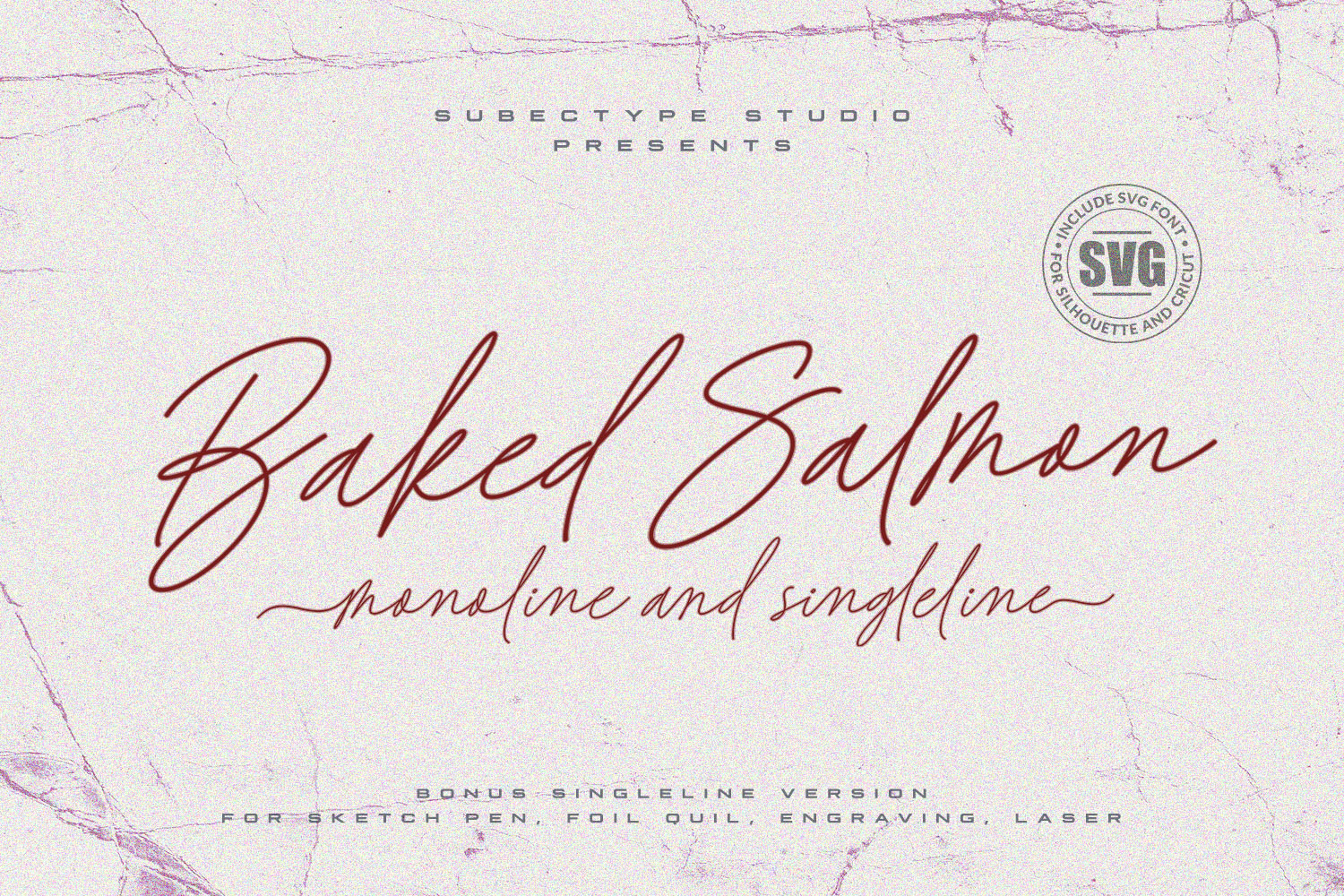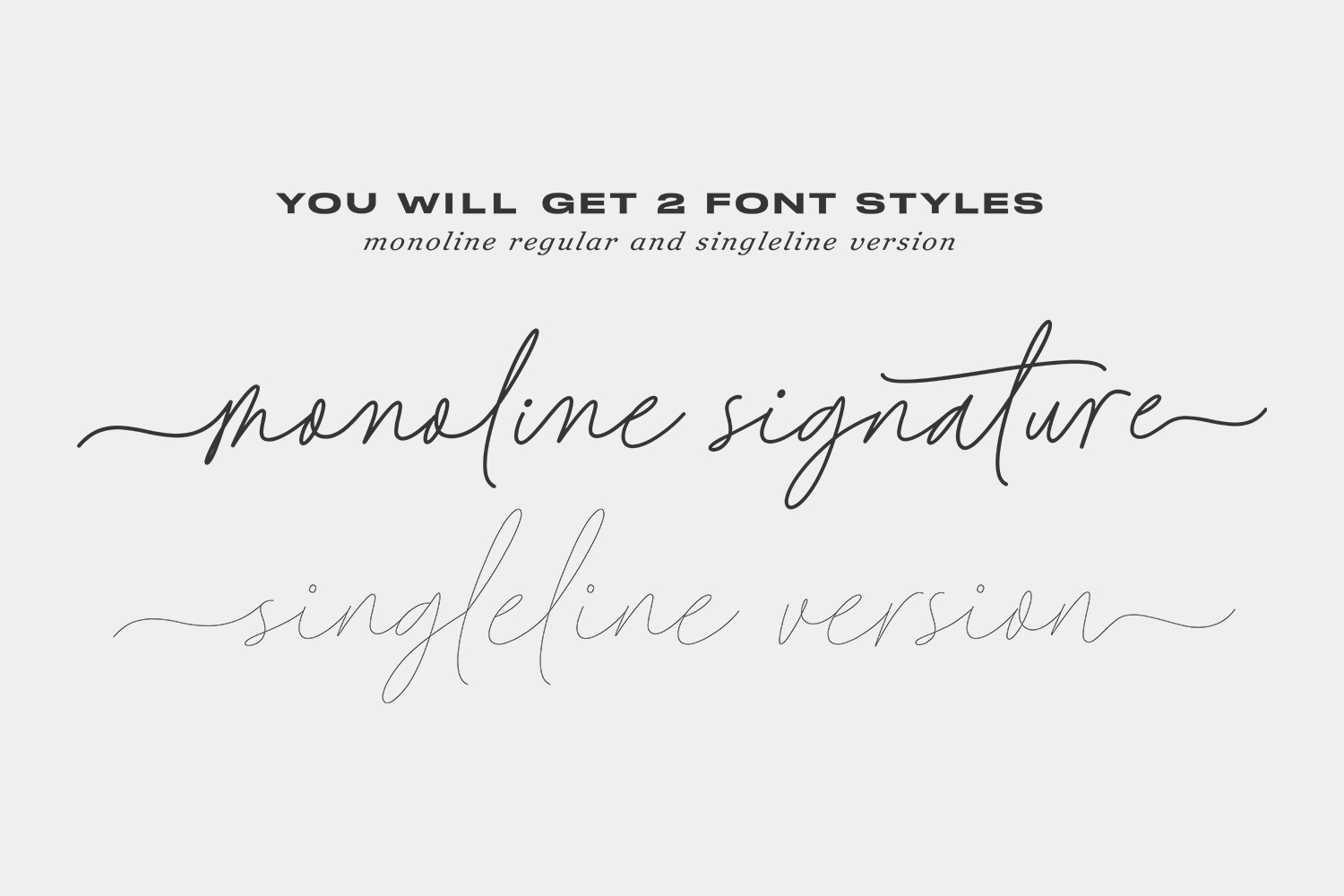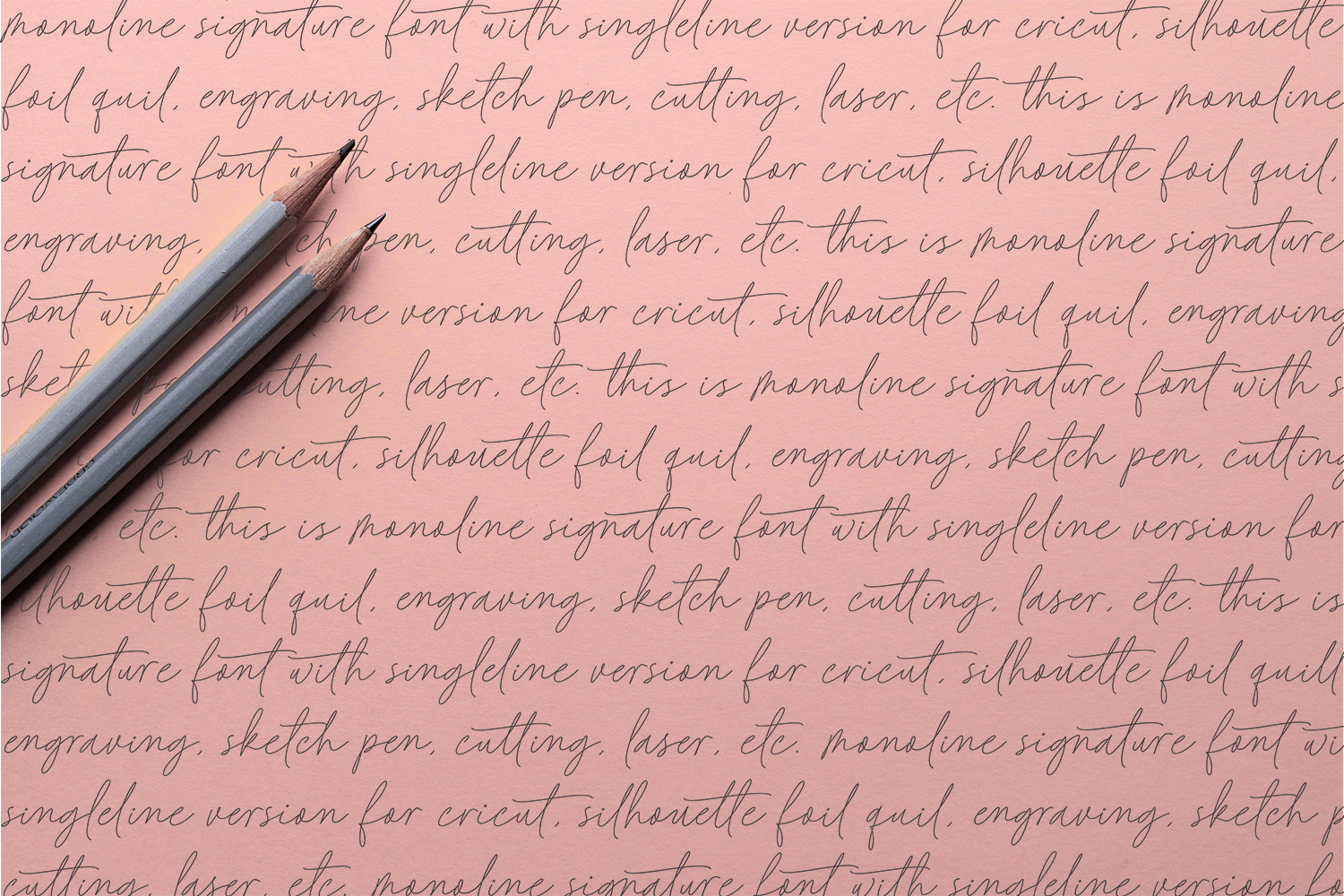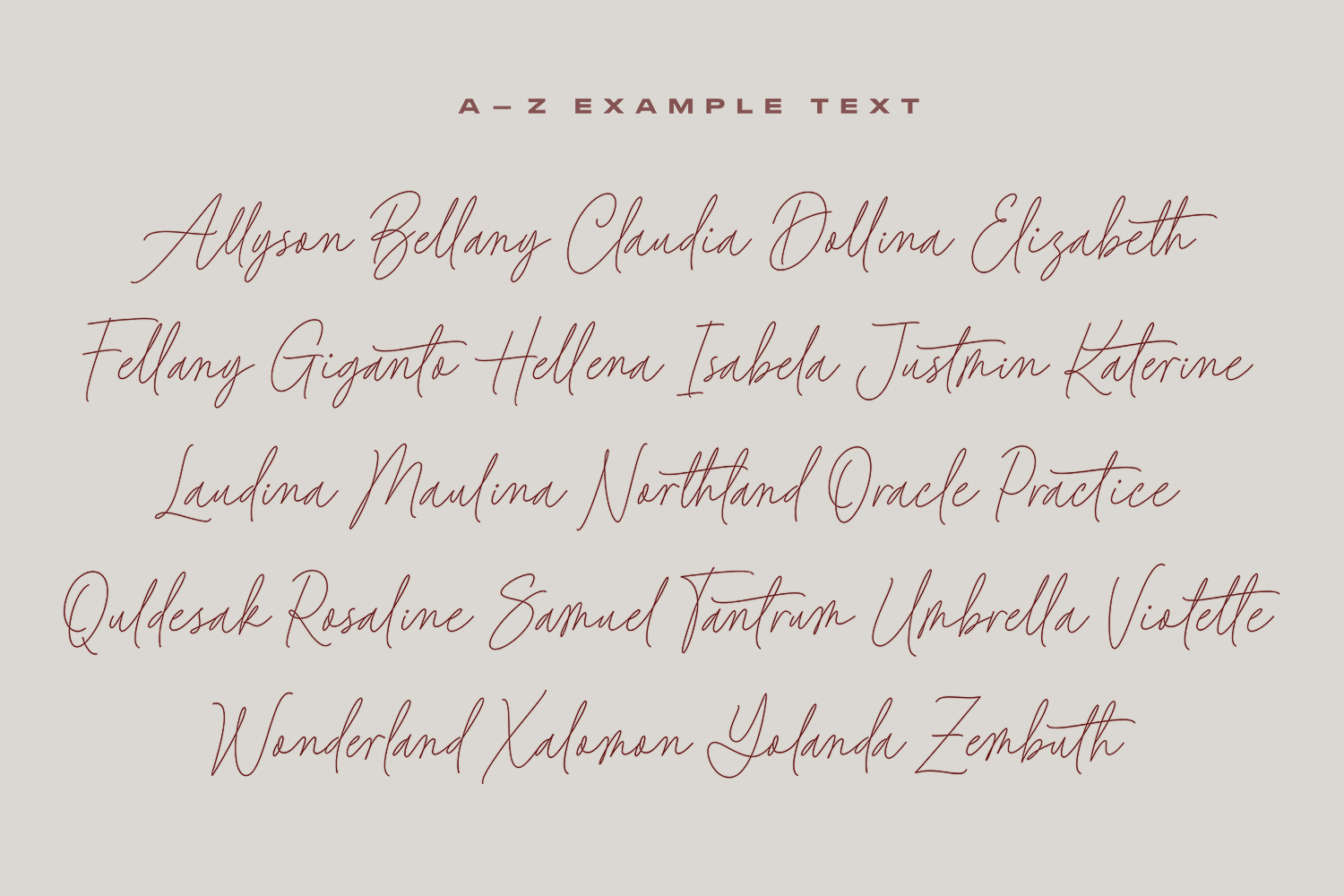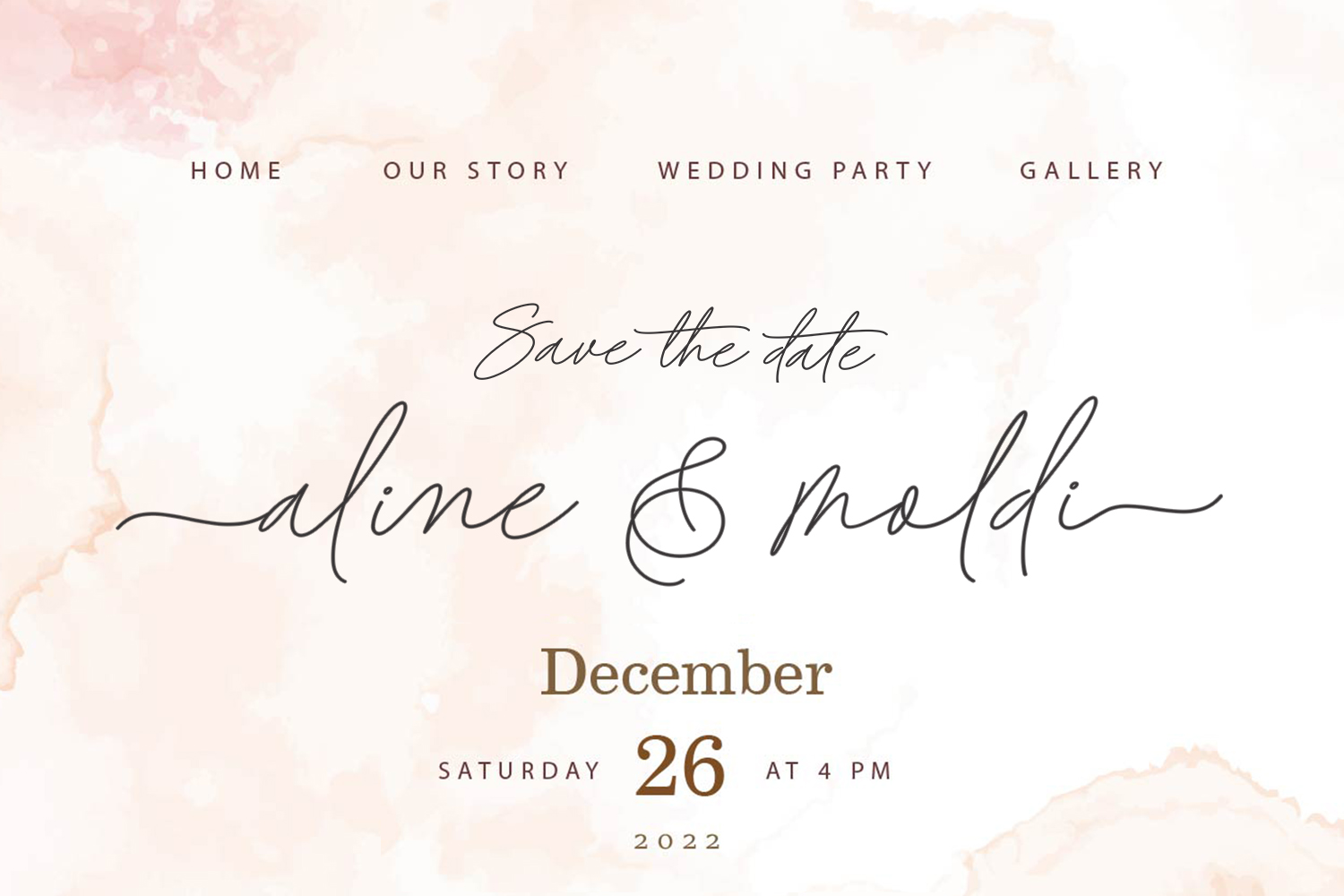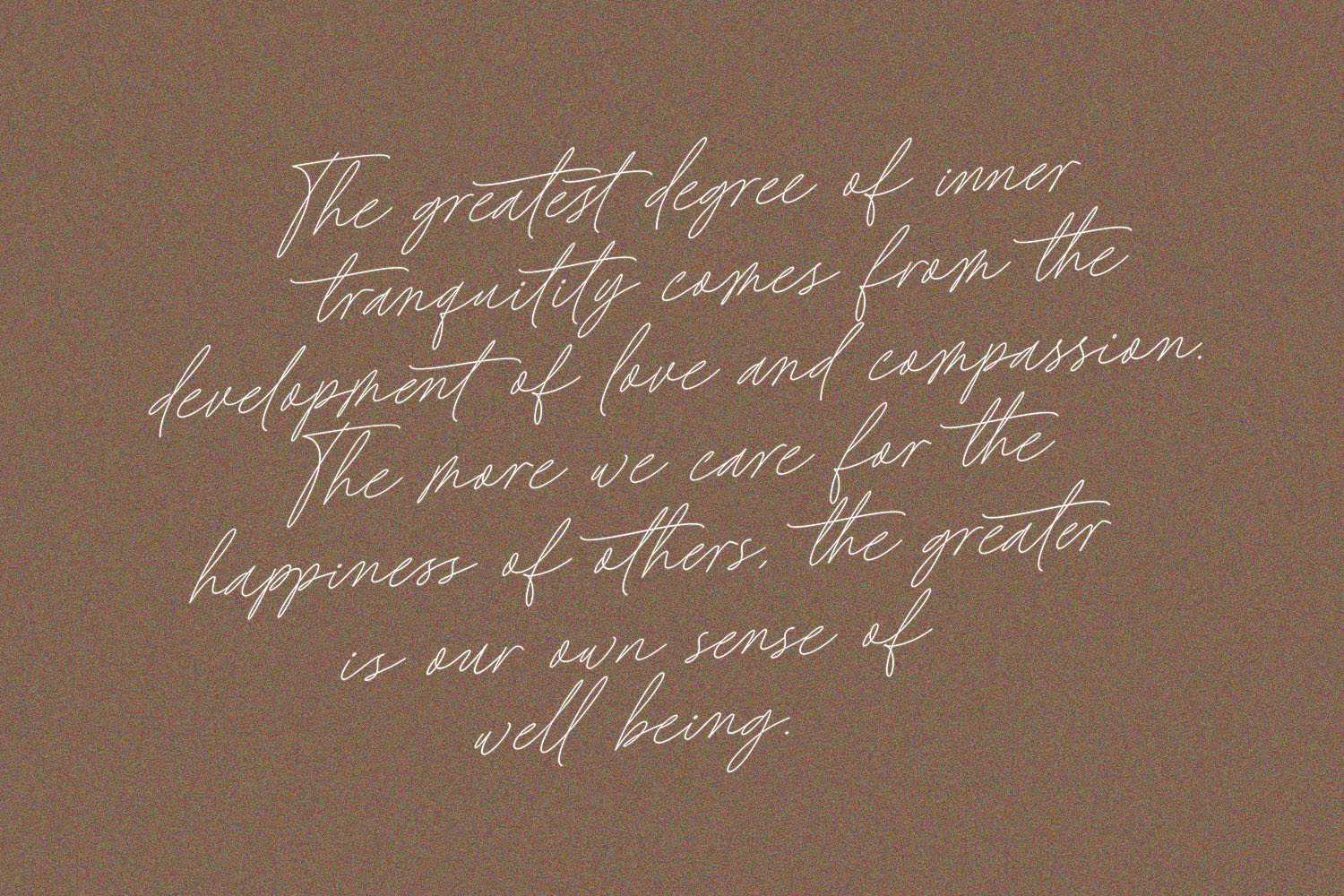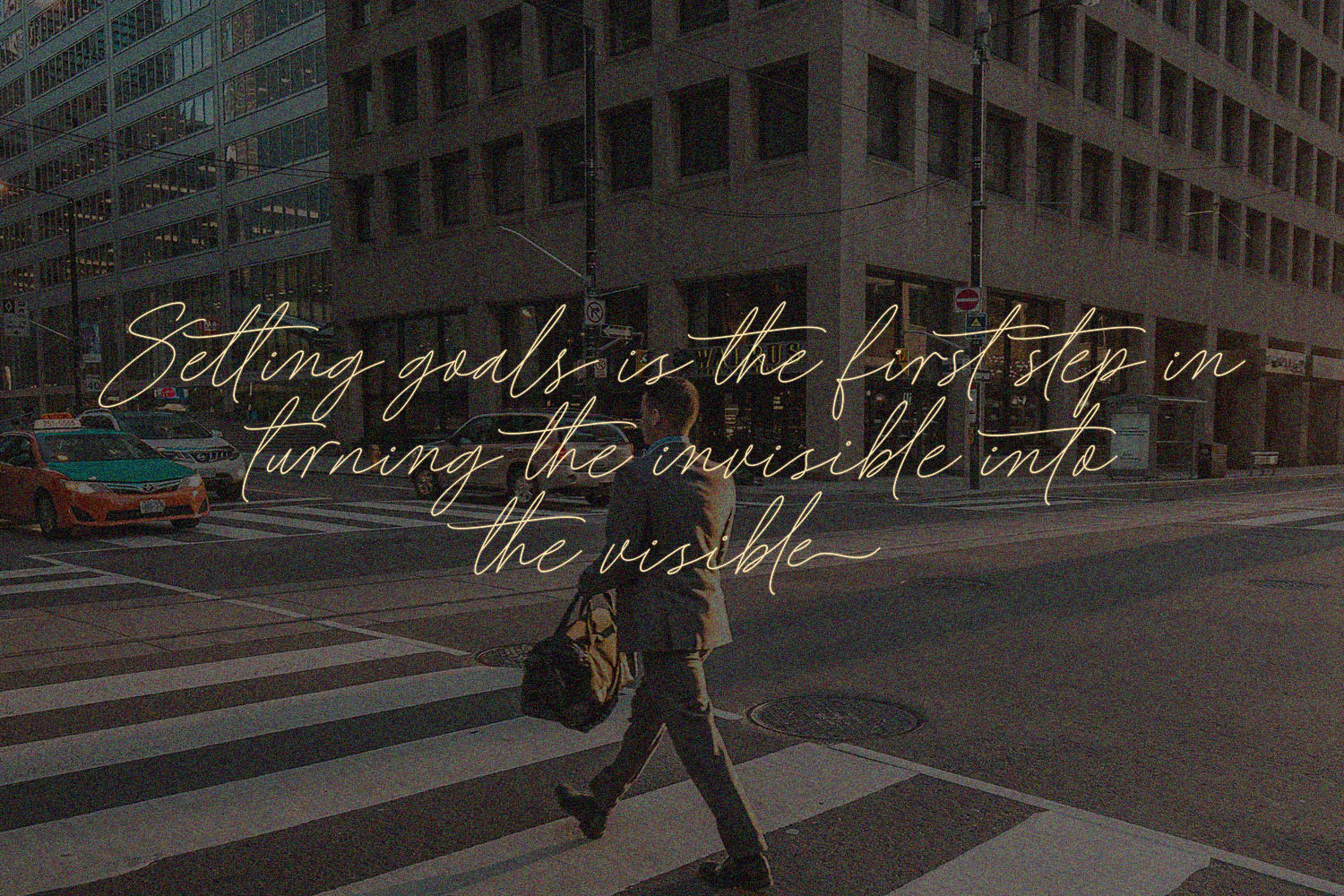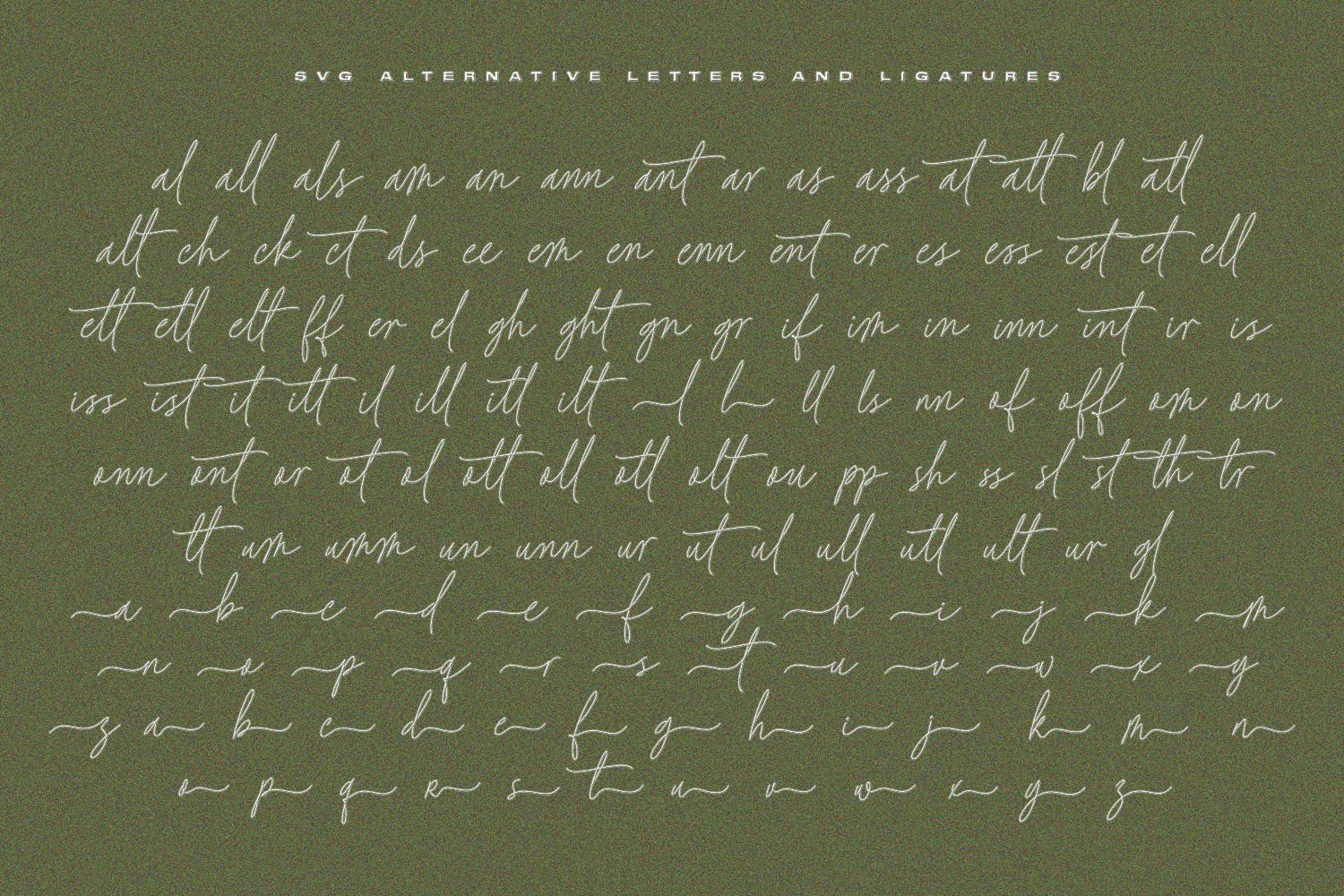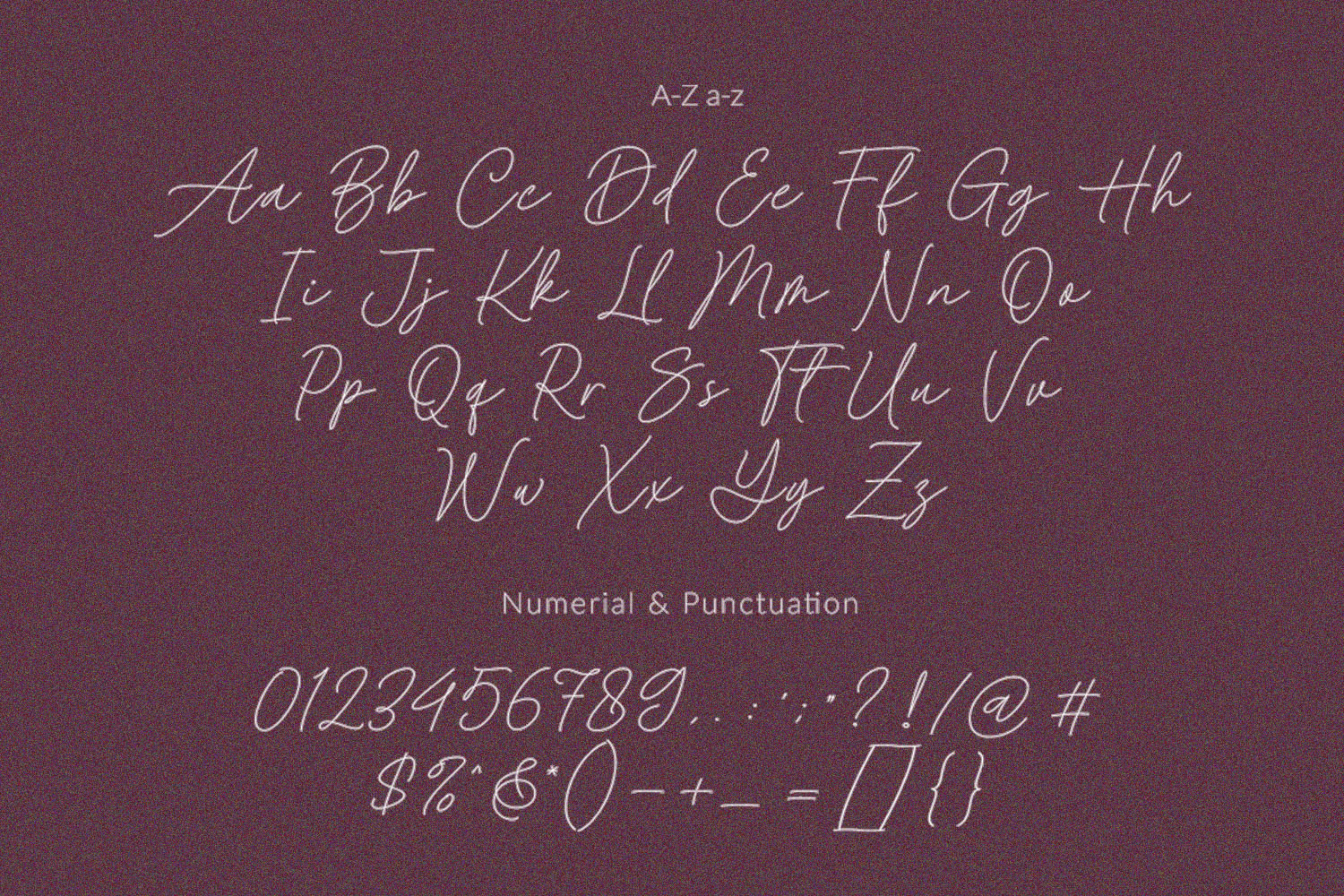
Baked Salmon is a Chic and Lovely handwritten signature font with singleline version, described by a Love touch with natural handwritten style, perfect for your favorite projects.
Fall in love with its incredibly distinct and timeless style and use it to create spectacular designs!
Baked Salmon Singleline version
SVG of alternative letters and ligatures for regular version only
Multilingual Support